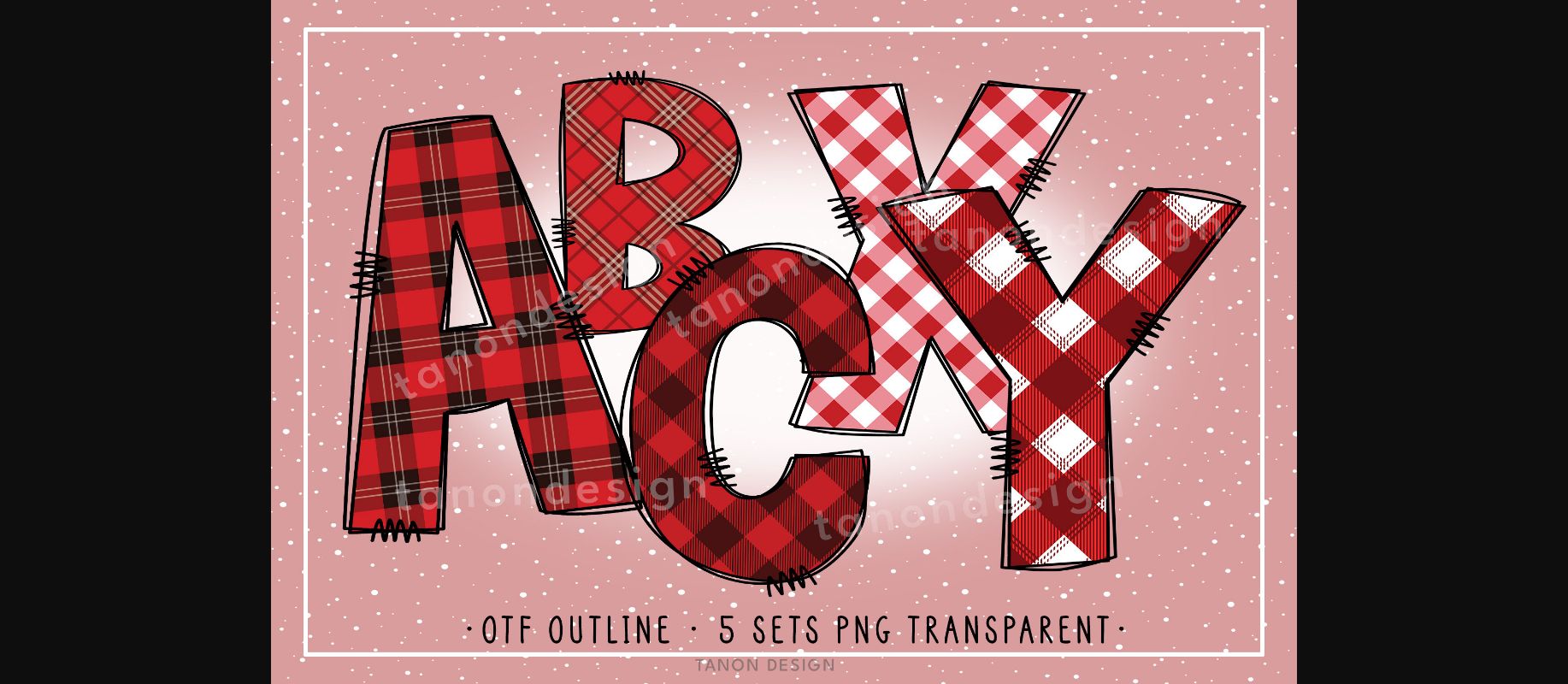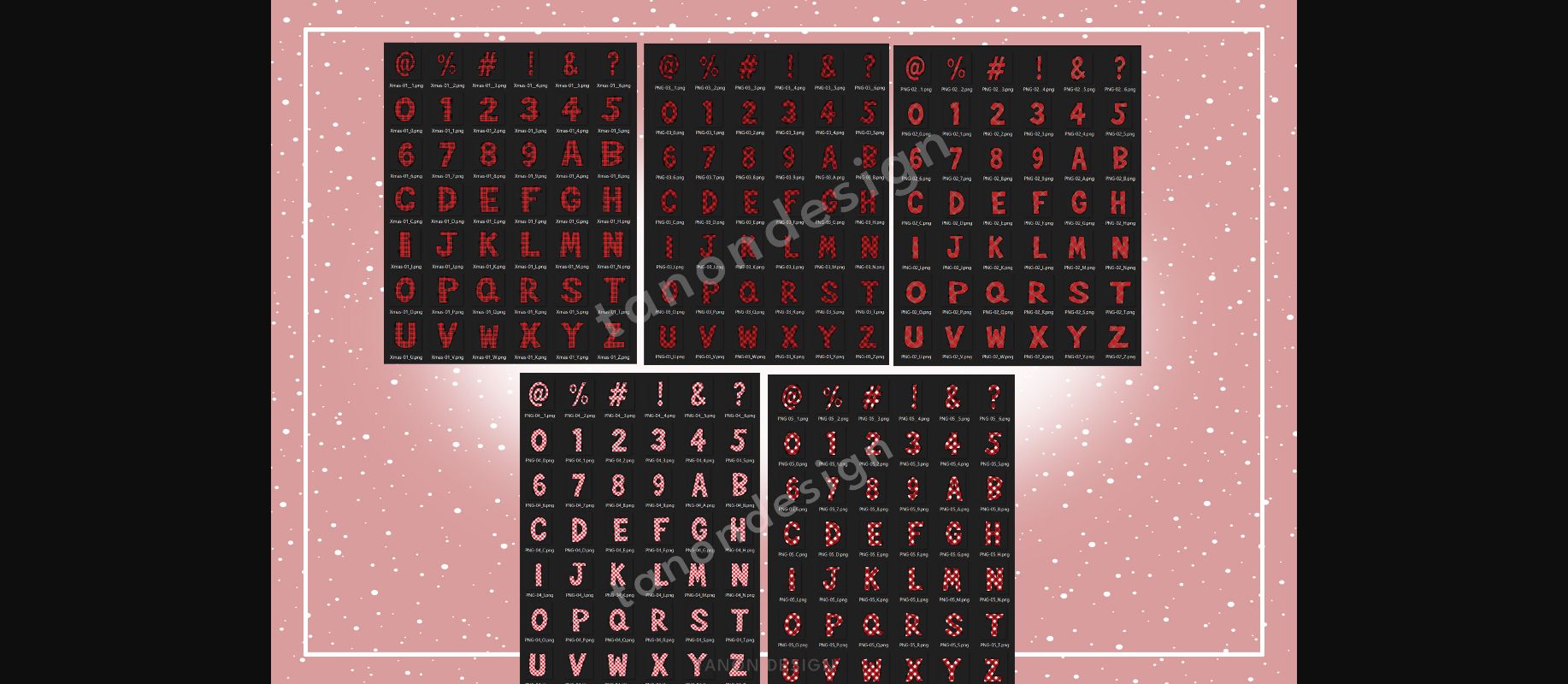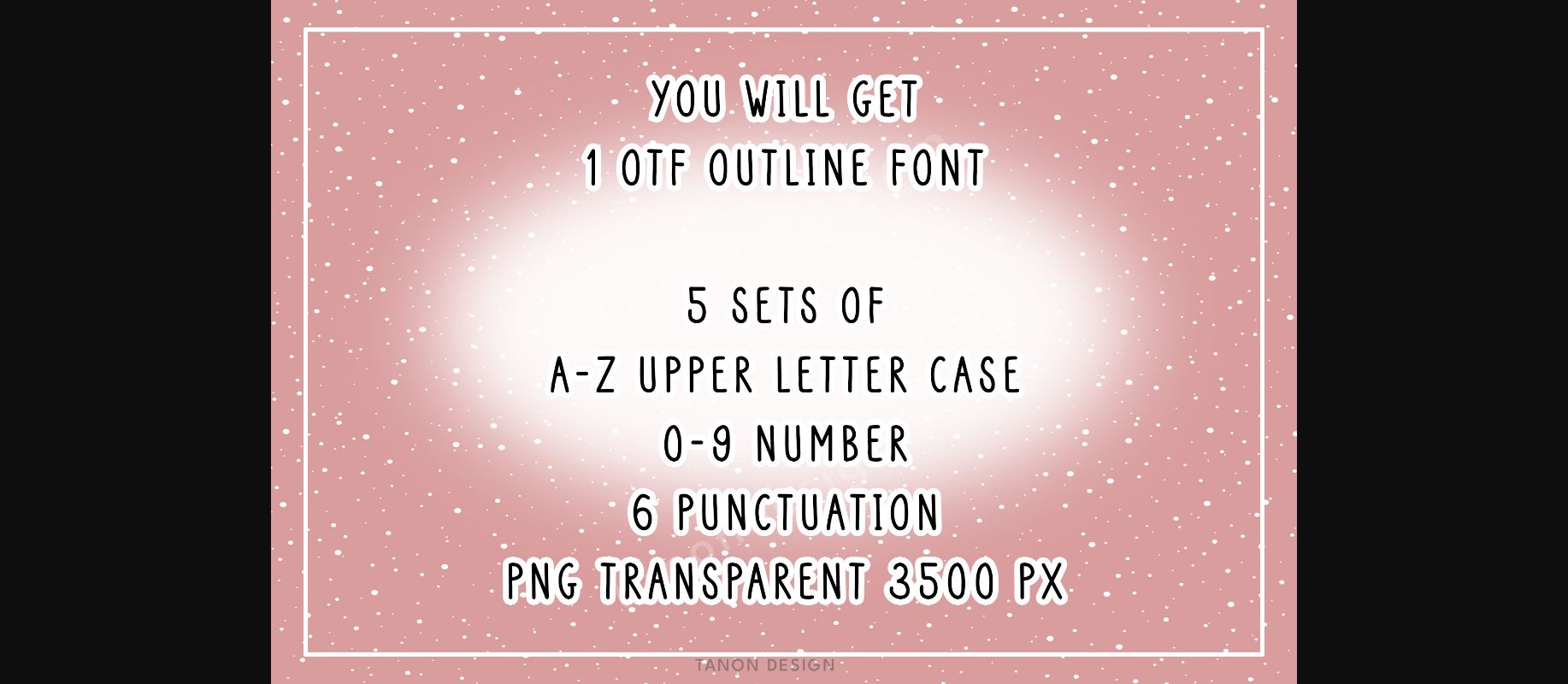
About Christmas Plaid Font
Christmas Plaid: A festive display color font featuring a delightful assortment of red plaid patterns, perfect for adding a touch of holiday charm to your designs.